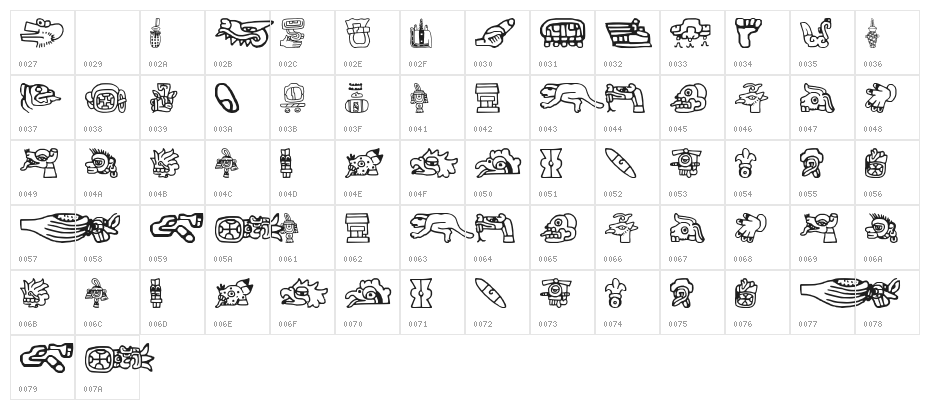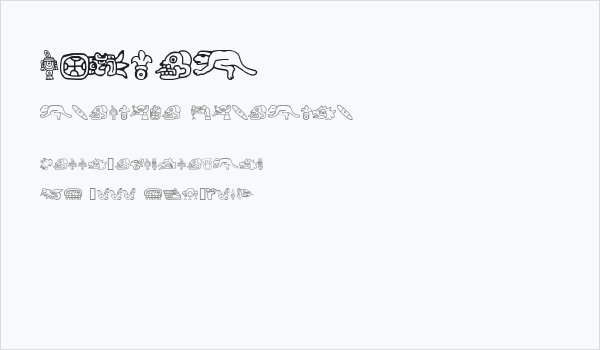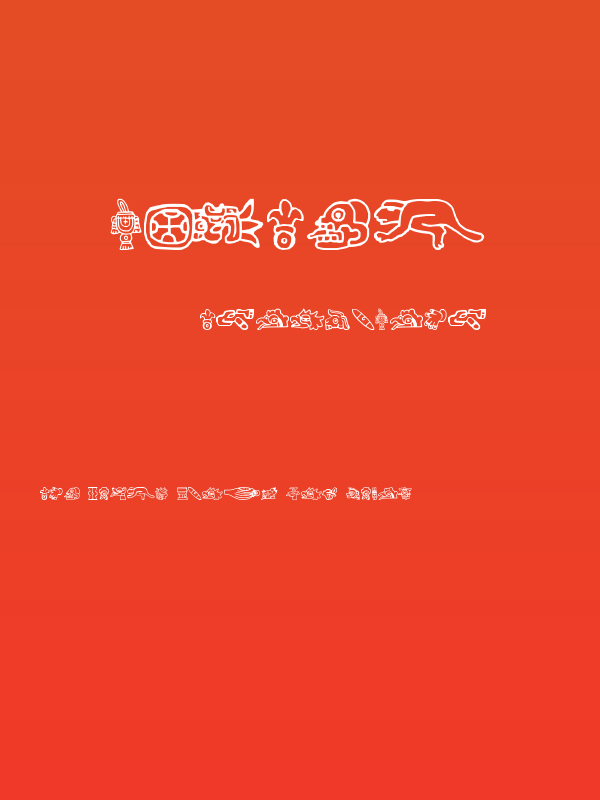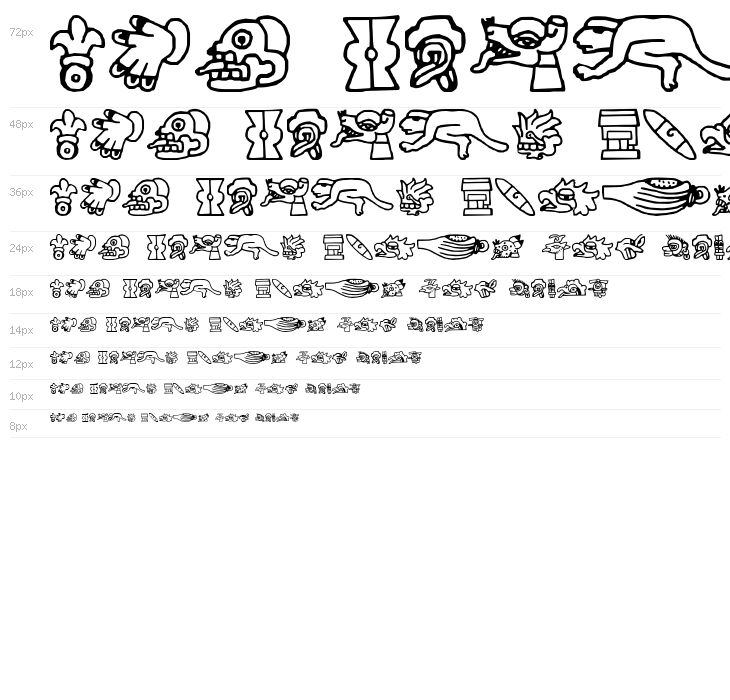
aztec Font
aztec Description
This font is a decorative and intricate representation of Aztec-inspired glyphs and symbols. Each character is a detailed illustration, capturing the essence of ancient Mesoamerican art and culture. The symbols are bold and complex, featuring a variety of shapes and lines that mimic traditional Aztec iconography. The characters are not uniform in size or shape, adding to the authentic and historical feel of the design. This font is not intended for standard text but rather for artistic and thematic purposes, where the visual impact of the glyphs can be fully appreciated.
| Use Case | Logos, Artistic projects, Cultural themes |
| Proposed Projects | Ideal for cultural exhibitions, educational materials on Mesoamerican history, themed event posters, or artistic projects that require a historical or cultural touch. |